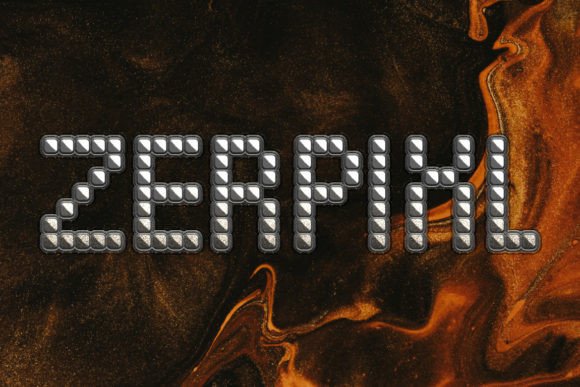
Welcome to the world of Zerpixl Font, a digital font that exudes futurism, technology, and creativity. Dive into the realm of pixelated beauty, where each letter is a captivating fusion of nostalgia and innovation. With its striking geometric shapes and sharp angles, Zerpixl Font is perfect for injecting a touch of boldness into your projects.
Step into the future as you explore the vast possibilities of Zerpixl Font. Whether you're a designer, crafter, or simply someone looking to add a touch of digital flair to your work, Zerpixl Font is the perfect choice. From eye-catching headlines and logos to futuristic posters and packaging, let your imagination run wild as you unleash the power of this remarkable font.
With Zerpixl Font, you'll be a part of a cutting-edge design movement that embraces the beauty of the digital realm. Join the ranks of creative individuals who are pushing the boundaries of design and embracing the pixelated allure of Zerpixl Font. From captivating visuals to dynamic displays, there's no limit to what you can achieve with this remarkable font.
Embrace the future with Zerpixl Font, the font that transforms your designs into digital masterpieces. Its pixelated charm will captivate audiences, leaving a lasting impression that speaks to the innovative spirit of the digital age. Don't miss out on this opportunity to elevate your projects and embark on a creative journey like never before.